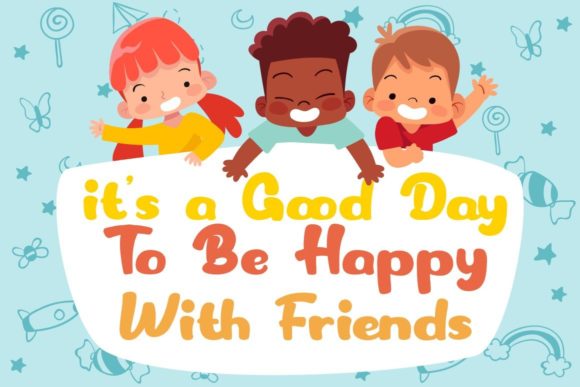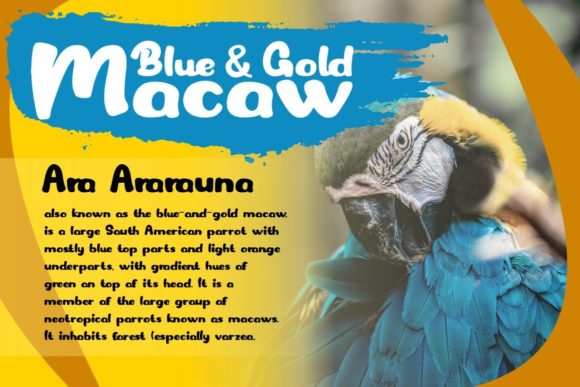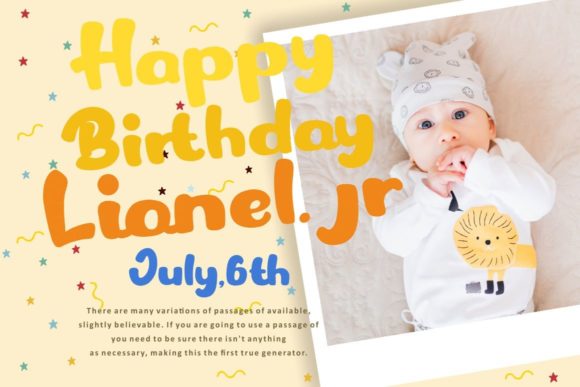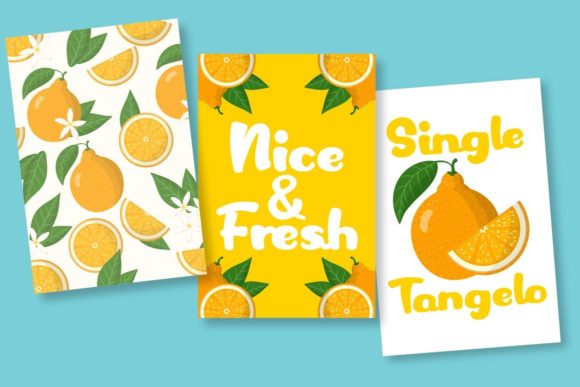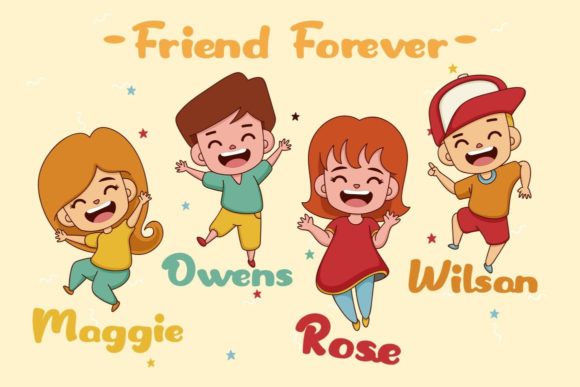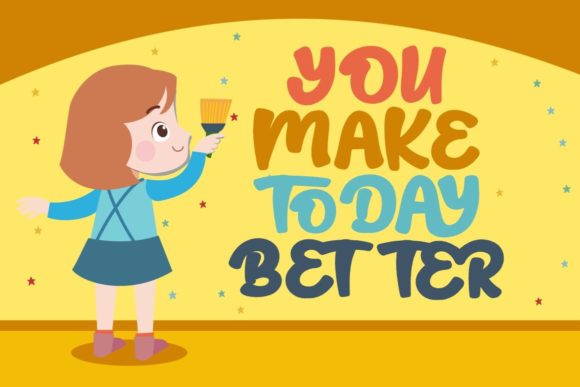
Introduction to Single Tangelo Font
Have you ever been working on a creative project, pouring your heart and soul into it, only to realize that the perfect font is missing? This is a familiar scenario for many designers. For those who crave that extra oomph in their designs, we’ve got some exciting news. Get ready to elevate your creative projects with the Single Tangelo Font, a cool and playful display font that’s sure to take your designs to the next level.
Whether you’re a seasoned designer or a beginner looking for a high-quality design resource, the Single Tangelo Font is an excellent choice. With its transparent background and PUA encoded features, you can easily access all glyphs and swashes, allowing you to add it confidently to your favorite creations. This versatile font is a must-have for any designer looking to add a touch of personality to their work.
Key Features of Single Tangelo Font
- High-quality, unique font design perfect for creative projects requiring a touch of elegance and sophistication.
- Single Tangelo Font comes with a transparent background, allowing for seamless integration with various backgrounds and designs.
- Unique characteristics: The Single Tangelo Font features a distinctive, hand-drawn style with subtle flair and elegance, making it an excellent choice for creative projects requiring a touch of sophistication.
Honest Review: Single Tangelo Font
I recently had the chance to experiment with the Single Tangelo Font, and I must say it’s been a fun addition to my design arsenal. This free download has been a game-changer for my creative projects, offering a unique and eye-catching aesthetic.
- ✨ High-quality design: The Single Tangelo Font boasts crisp lines and a clear, legible font style that makes it perfect for titles, headings, and body text.
- ✨ Transparent background: The font’s transparent background allows for seamless integration with various design elements, giving me more creative freedom in my projects.
- ✨ Unique design: The Single Tangelo Font’s distinctive style sets it apart from other fonts, making it an excellent choice for designers looking to add a touch of personality to their work.
While the Single Tangelo Font is a valuable design resource, I do have a few concerns. ⚠️ The font’s limited character set might be a drawback for designers who need to typeset longer texts. Additionally, some users might find the font’s unique style too bold or overpowering for certain projects.
Overall, I’m impressed with the Single Tangelo Font’s quality and versatility. As a design resource, it’s a great addition to any creative project, and its free download makes it an excellent choice for designers on a budget.
To get the most out of the Single Tangelo Font, experiment with different font sizes, colors, and layering techniques. Combine it with other design resources to create a cohesive and visually appealing design.
The Single Tangelo Font is ideal for various creative projects, including social media graphics, presentations, reports, and marketing materials. Its versatility and high-quality design make it a valuable addition to any designer’s toolkit.